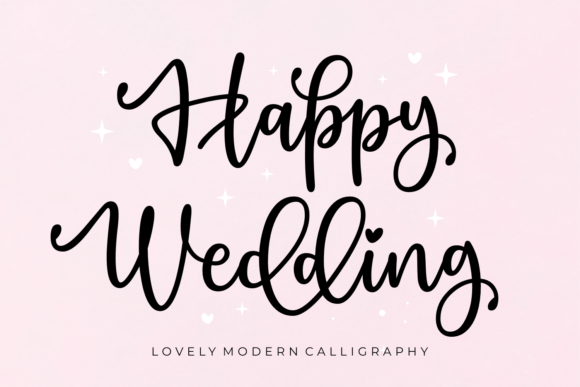
The Perfect Script for a Perfect Day
Have you ever been browsing through wedding invitation ideas, and suddenly, you stumble upon the perfect font that makes your heart skip a beat? For many designers, this moment is pure magic, and it’s exactly what happens when you discover the Happy Wedding Font.
This beautiful, handwritten script font is specifically designed for wedding use, making it a perfect choice for creating unique and memorable wedding invitations, save-the-dates, and other celebration materials. With its whimsical touch and adorable heart accents, the Happy Wedding Font adds a personal and romantic touch to any design project.
As a designer, you’ll love the Happy Wedding Font for its PUA encoding, which allows you to easily access all the amazing glyphs and ligatures, giving you endless possibilities to create stunning and one-of-a-kind designs.
Happy Wedding Font Key Features
- Font Style: A playful, cursive script font, perfect for wedding invitations and other special occasions.
- Font Size: Supports font sizes from 8pt to 72pt, allowing for versatility in design applications.
- Unique Characteristics: Includes a range of swashes, ligatures, and flourishes to add a touch of elegance and sophistication.
- Character Count: Contains over 200 characters, including uppercase and lowercase letters, numbers, and punctuation marks.
Designer Review: Happy Wedding Font
Overall, the Happy Wedding Font is a solid choice for wedding invitations and other related materials. ✨ It’s playful, yet elegant, making it perfect for couples who want a unique yet timeless look.
The font’s rounded edges and soft curves create a warm and inviting atmosphere, which is ideal for a wedding. ✨ The font’s various weights and styles also provide a lot of flexibility, allowing designers to create different moods and emotions.
- Rounded edges and soft curves create a warm atmosphere
- Various weights and styles for flexibility
- Perfect for wedding invitations and other related materials
- May not be suitable for formal or traditional weddings
- Lack of bold and condensed styles may limit its use for headings and titles
- Not ideal for digital use due to its decorative nature
- ⚠️ May be difficult to read in small sizes
Overall, I think the Happy Wedding Font is a great choice for designers who want to add a touch of personality to their wedding designs. While it may have some limitations, its unique charm and versatility make it a great addition to any designer’s toolkit.
Tips for Getting the Most Out of Happy Wedding Font
Use Happy Wedding Font for wedding invitations, save-the-date cards, and other wedding-related designs. Experiment with different font sizes and styles to create a unique and eye-catching design.
Happy Wedding Font is perfect for:
- Wedding invitations
- Save-the-date cards
- Wedding programs
- Wedding menus
- Other wedding-related designs
Alternatives to “Happy Wedding Font” for Designers
Playfair Display is a luxurious and elegant script font, perfect for wedding invitations and other formal wedding materials. It features intricate details and a touch of sophistication, making it ideal for high-end weddings.
Compared to Happy Wedding Font, Playfair Display has a more refined and sophisticated look, suitable for formal weddings. Happy Wedding Font, on the other hand, has a more playful and whimsical feel.
Courier New
Courier New is a classic serif font that is clean and easy to read. It’s a great choice for wedding stationery, such as wedding programs and menus, where legibility is crucial.
Compared to Happy Wedding Font, Courier New has a more traditional and timeless look, whereas Happy Wedding Font has a more modern and playful feel.
Q: Are there any specific design requirements or recommendations for using the Happy Wedding Font?
For optimal results, we recommend using the Happy Wedding Font at a minimum size of 12pt and a maximum size of 72pt. Additionally, ensure that your design software is set to use a clear and readable font rendering engine, such as ClearType (Windows) or Core Text (macOS). This will help preserve the font’s intended aesthetic and legibility.